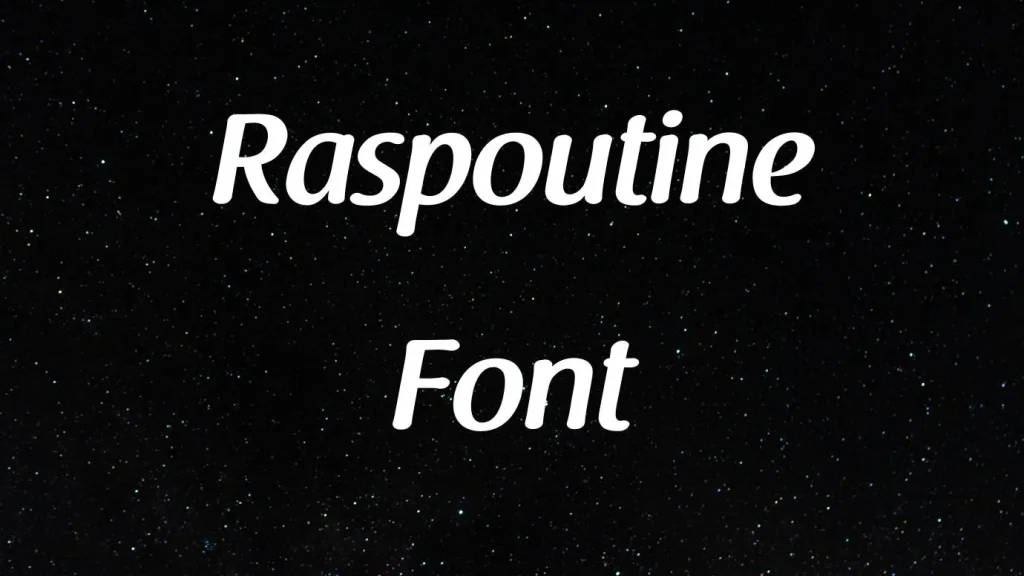
The style incorporates a set of optional cords, which includes its versatility. Raspoutine Font contains vogue glyphs and characters the design may be an incredible choice for any extent that needs a touch of class. Get it and include a stylish touch to the next project.
This typeface moreover has both lowercase characters and capitalized characters, as well as a huge number of ligatures. This typeface helps creators when designing fields. You can use this typeface to create remarkable and eye-catching designs.
Description of Raspoutine Font by Dimitri Castrique
This font was utilized in creating numerous web applications. The use of a wide range of font styles can be seen on several platforms. This elegant TrueType style can be created online by using its generating tool. You may quickly create a unique typeface style in a modern way.
Raspoutine Font
Multiple display designs can make use of its innovative classic style appearance. Typeface has a fantastic style and a trendy design. Its look is different and cool, and it features about 150 characters in a standard typeface. This typeface design easily makes a good combination pair with mitsubishi font.
This font is also suitable for logo design projects involving personal information. This makes it a clean and basic typeface. This typeface contains interesting glyphs which allow it a cutting-edge sleek look. You’ll be able to have this typeface into a CSS record for creating eye-catchy website content.
Raspoutine Font Variations
You can use the font on logos, wedding invitations, t-shirts, headings, signage, labels, letterheads, posters, news, badges, subheadings, craft design, book titles, branding, and greeting cards. There are a variety of ways to use this typeface for social media posts.
It is a stunning typeface that is suitable for many high-quality card designs. Advertising designs, banners, and emblems should use this attractive font.
Raspoutine Font
It is also appropriate for the creation of long and short paragraphs. Also appropriate for artwork and banner design. There are smaller capital letters in it. Using this typeface in combination with many other typefaces can truly assist produce an original and eye-catching style.
Projects that involve the font include emails and texts, webpages, emblems, and also more. It’s ideal for giving your work uniqueness as well as making it differentiate itself from other projects.
Due to its eye-catching design, this typeface is commonly used in a lot of stylish projects. For your YouTube channel, you can create thumbnails. Professional applications like Adobe, Microsoft Word, Acrobat, and design software generally can use this style.
Is Raspoutine a monospaced font?
Raspoutine is not a monospaced font. It is a proportional font, meaning that each character occupies a different amount of horizontal space based on its design.
Why is Raspoutine Font so popular?
Raspoutine Font has gained popularity due to its unique and distinctive style. Its elegant and vintage-inspired letterforms, combined with a touch of modernity, have made it appealing to designers and individuals looking for a sophisticated and eye-catching typeface for their projects.
Is Raspoutine the most used font?
While Raspoutine Font has gained a notable following and is widely used in certain design circles, it is not the most used font overall. Fonts such as Arial, Times New Roman, and Helvetica still dominate in terms of widespread usage across different mediums and industries.
Is Raspoutine a good website font?
Raspoutine Font can be a good choice for certain website design contexts, depending on the overall aesthetic and tone desired. Its unique style can add character and visual interest to websites that aim to evoke a vintage or retro vibe.